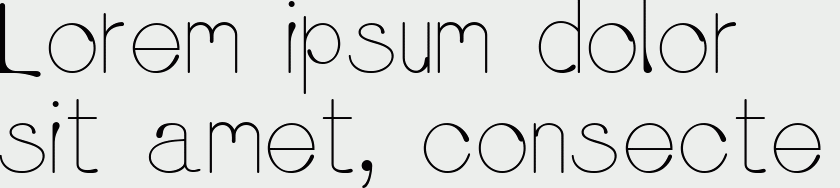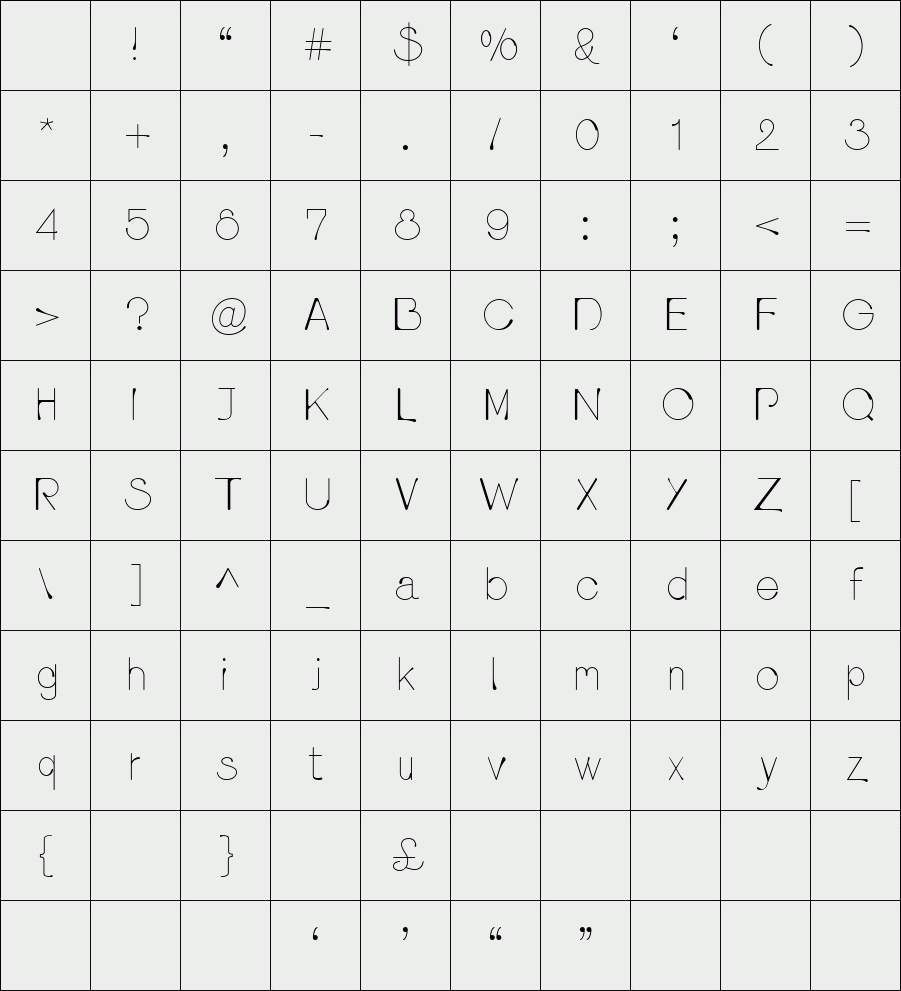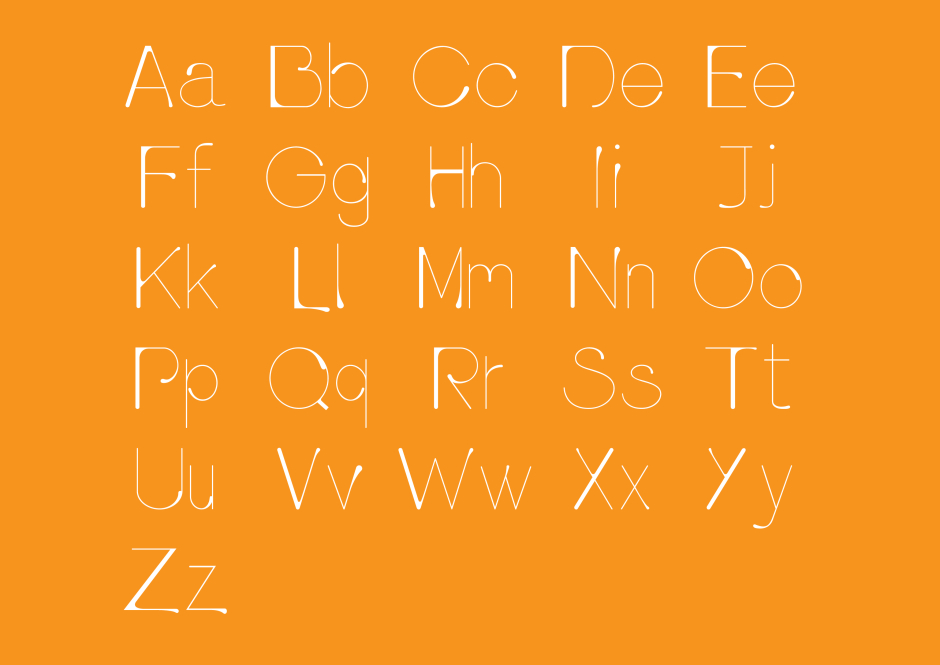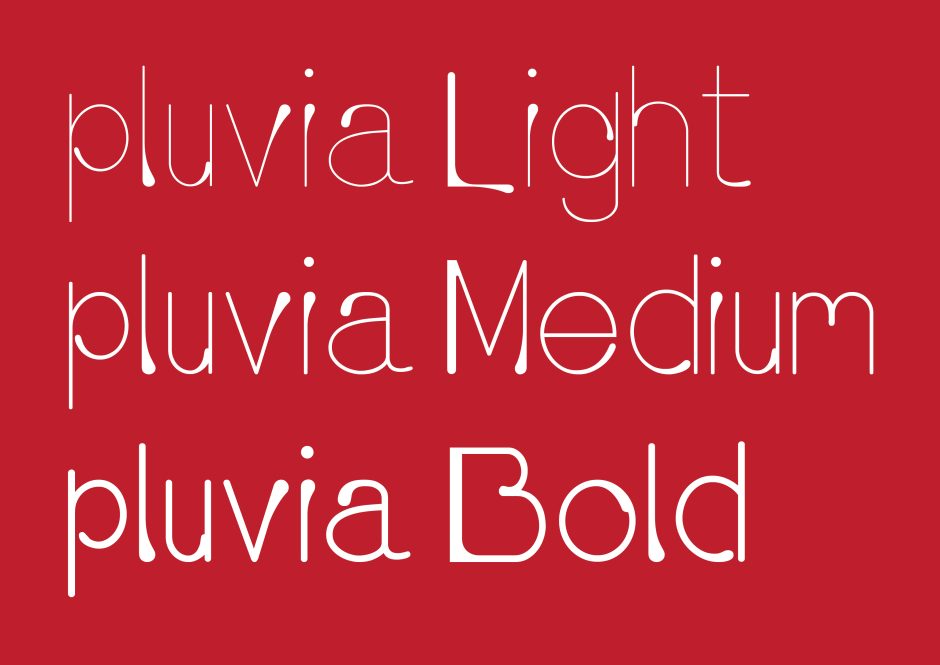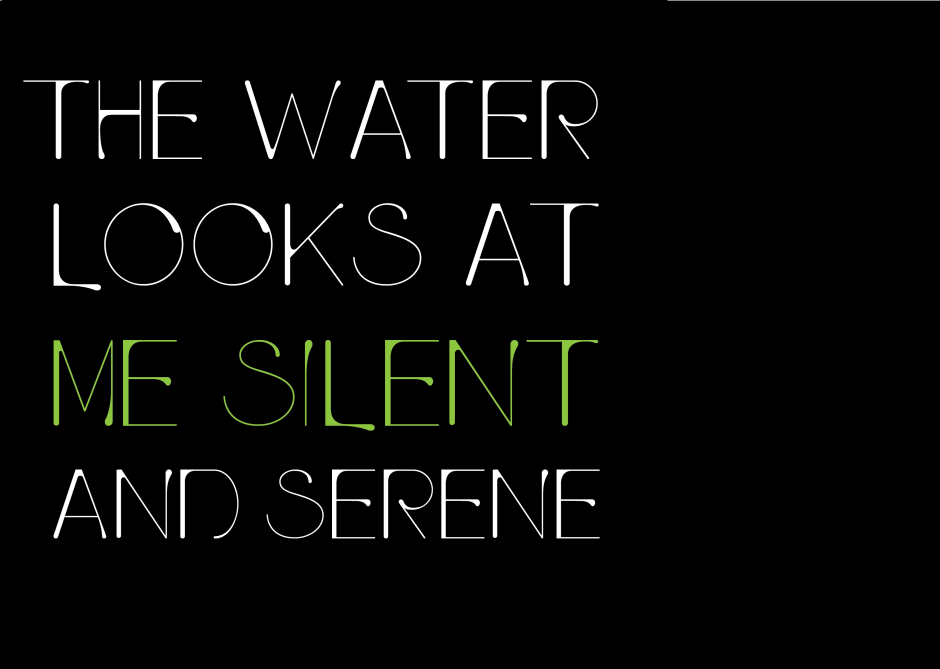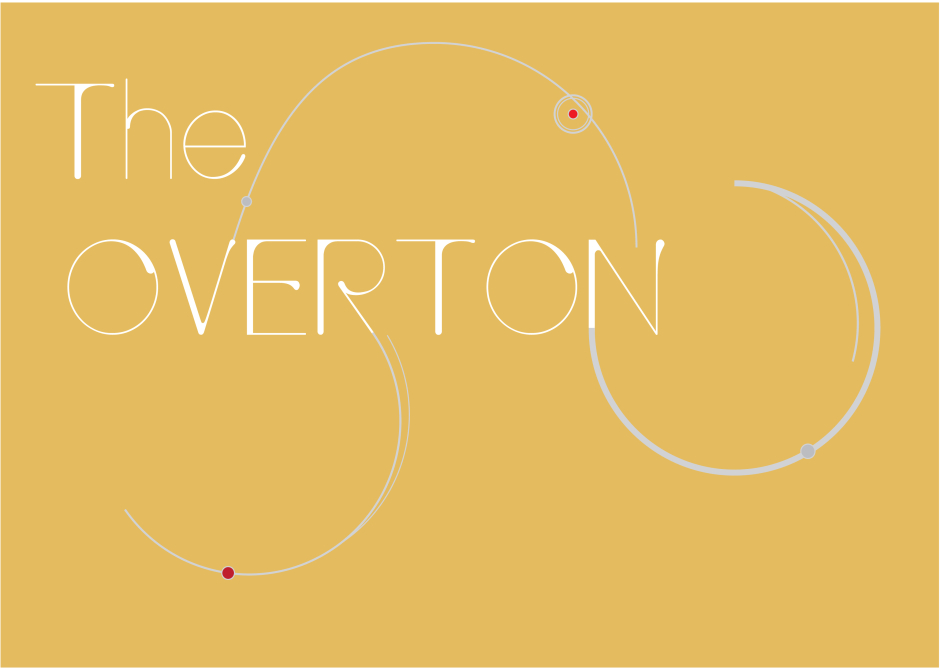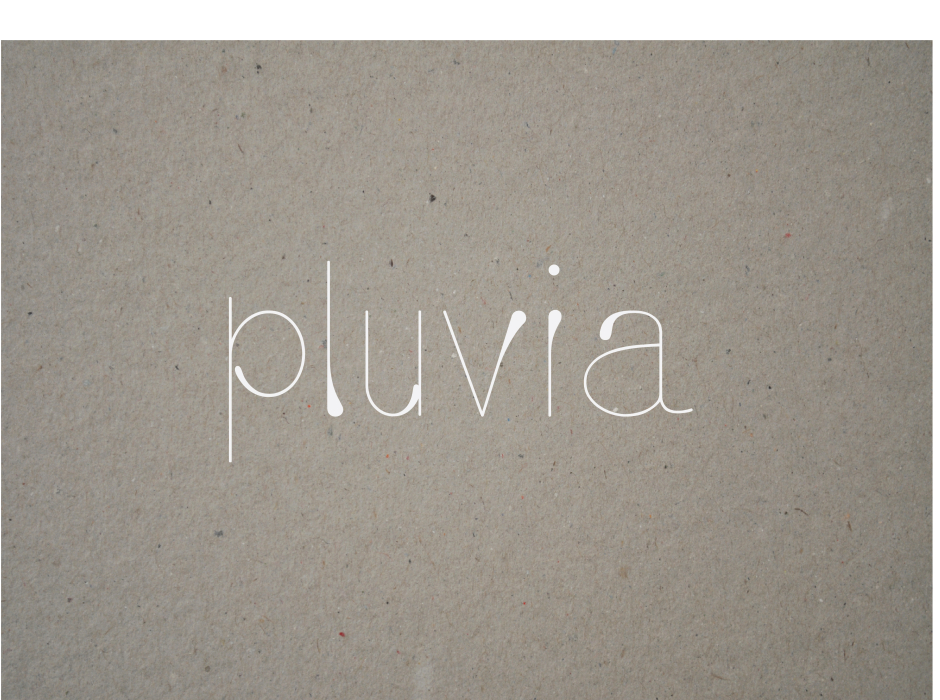
pluvia
/ pluvia medium
pluvia meaning Latin for rain, is a serif typeface that comes in three weights light, bold and medium. The font is designed by Grant Milne. The font is inspired by rain droplets, which can be visibly seen in the construction of this elegant font.
Designer: Grant Milne